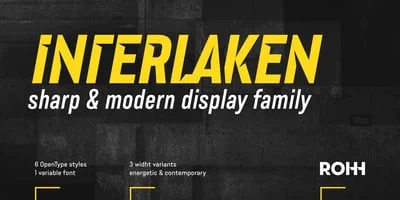
Interlaken Font
Interlaken Font is perfect for Swiss tourism branding, Alpine resort marketing, luxury watch companies, precision engineering firms, mountain adventure tours, Swiss hospitality brands, clean technology companies, high-end financial institutions, and any project requiring typography with pristine Swiss elegance and Alpine sophistication.
What makes Interlaken Font exciting is its crystalline purity that captures the breathtaking beauty and serene majesty of Swiss Alpine landscapes with clean letterforms that reflect the pristine clarity of mountain lakes and the precision of Swiss craftsmanship. This exceptional typeface embodies the harmonious balance between natural grandeur and human excellence with geometric perfection that mirrors the snow-capped peaks and crystal-clear waters of the Swiss Alps. The font's Alpine character and Swiss sophistication make it perfect for brands celebrating precision, purity, and the timeless elegance of Swiss design traditions.
The Interlaken Font family includes light, regular, and bold weights, featuring complete uppercase and lowercase alphabets, numerals, punctuation marks, and Swiss-inspired design elements. The font maintains consistent Alpine elegance throughout all weights while ensuring excellent readability for both majestic headlines and detailed Swiss precision documentation in luxury and tourism contexts.
Whether you're designing for Swiss luxury brands, creating Alpine tourism materials, or developing precision engineering branding with Swiss aesthetics, Interlaken Font delivers unmatched Swiss sophistication and Alpine purity to your projects. This distinguished typeface transforms ordinary text into expressions of Swiss excellence that honor the finest traditions of Alpine beauty and precision craftsmanship. The font's pristine character makes it ideal for luxury hospitality, precision manufacturing, and Swiss heritage brands. Download this exceptional font today and bring the timeless elegance of Swiss Alpine culture to your design projects with authentic Swiss sophistication and crystalline Alpine beauty.